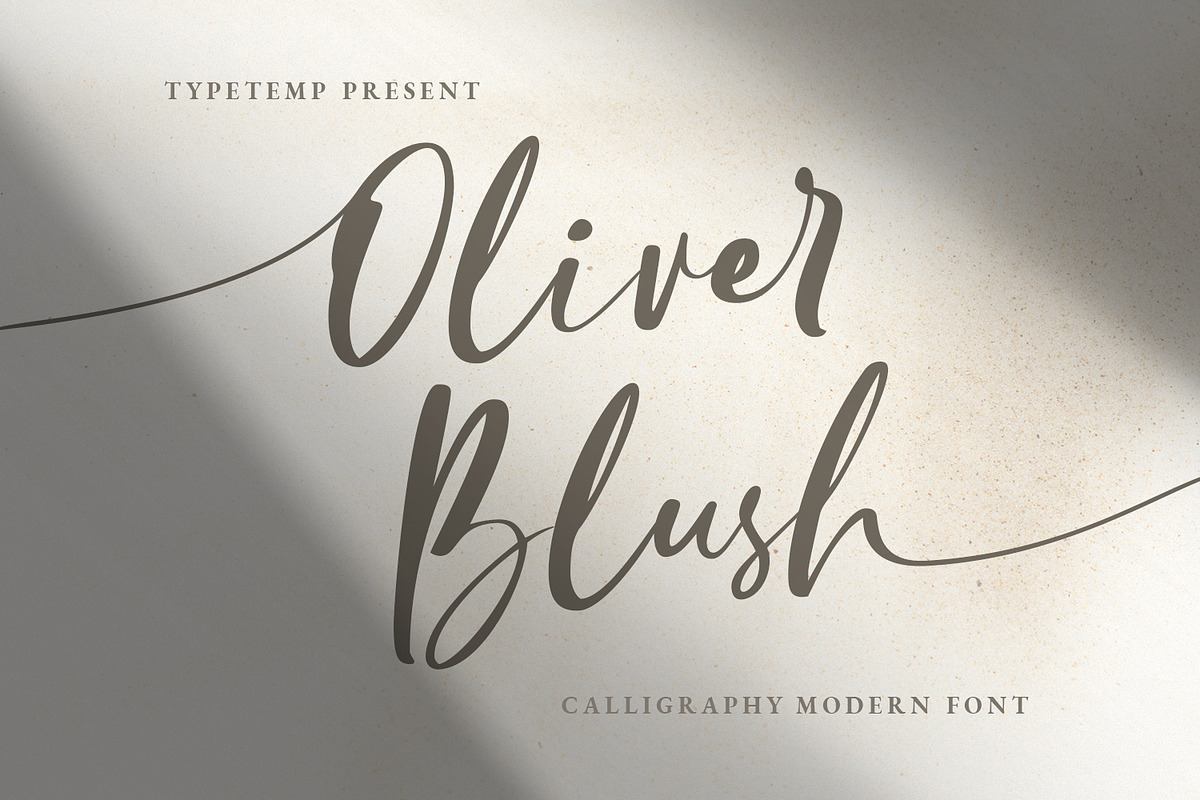
Oliver Blush Modern Calligraphy Font Free Download is a soft, romantic script typeface that captures the essence of modern elegance and handcrafted charm. With its flowing curves, delicate swashes, and graceful rhythm, this font is perfect for wedding invitations, branding, beauty product packaging, social media graphics, and heartfelt quotes.
Designed to reflect the natural movement of handwriting, Oliver Blush Modern Calligraphy Font Free Download includes a variety of ligatures and stylistic alternates that allow for truly custom typography. Its sophisticated style adds a refined touch to both digital and print designs, making it a go-to choice for designers looking to create something beautiful and expressive.